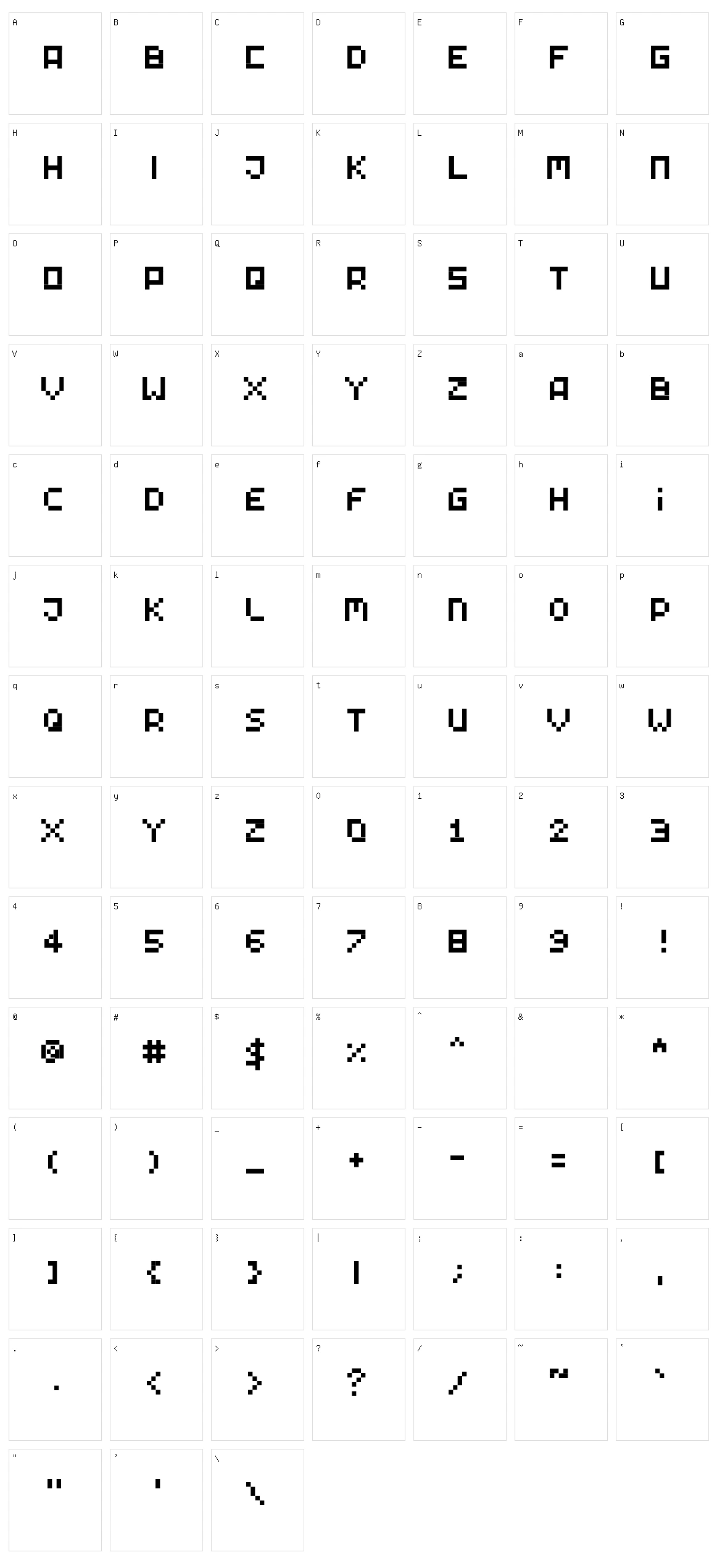
The free font Tiny Pixy is carefully designed by Martin J, showcasing a thoughtful balance of creativity and usability and belongs to the Bitmap font family. When you download the ZIP file, it contains only 4.64 KB of font files, making it lightweight and quick to download. Please review the license details below to understand permitted usage and distribution rights. If license information is not available, we recommend using this font for personal projects only or contacting the author directly for commercial usage permissions.